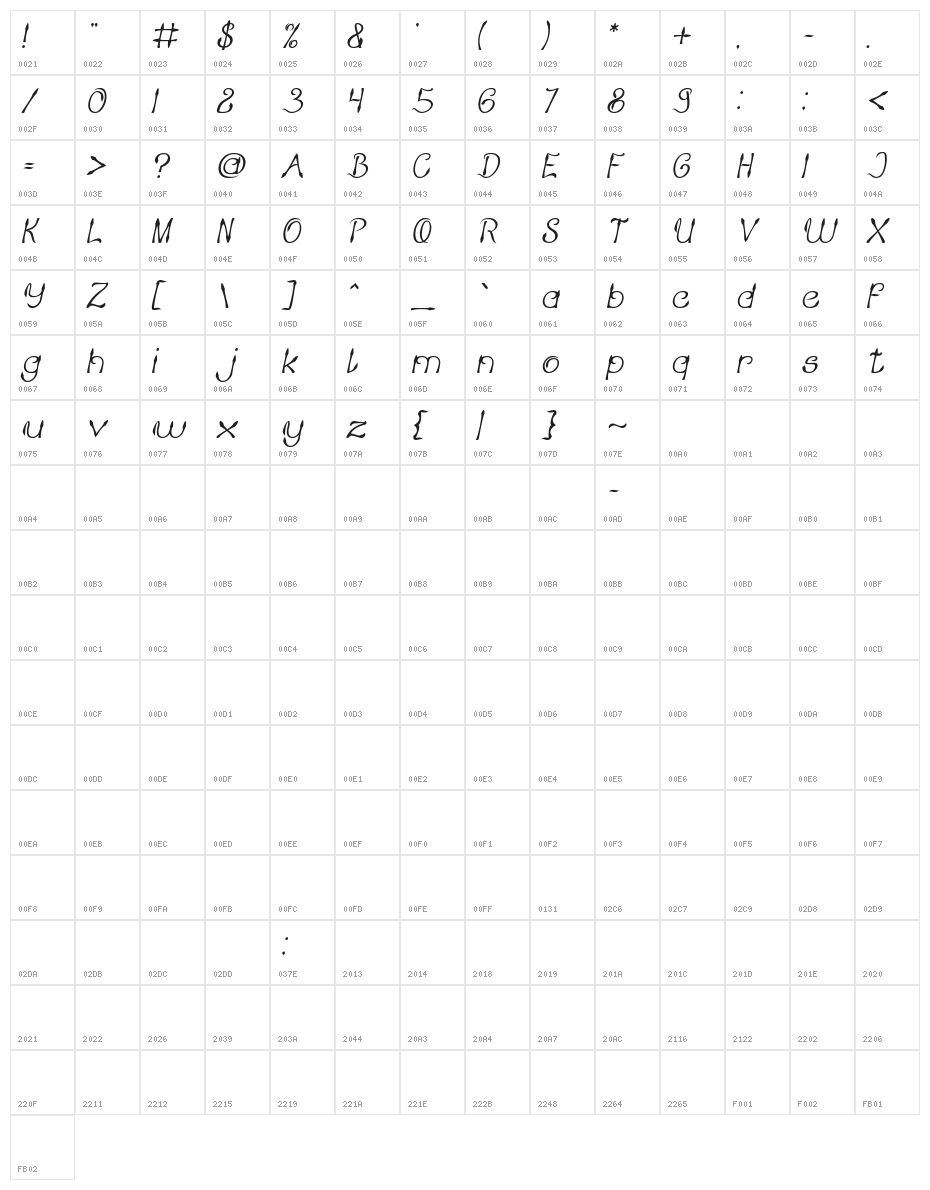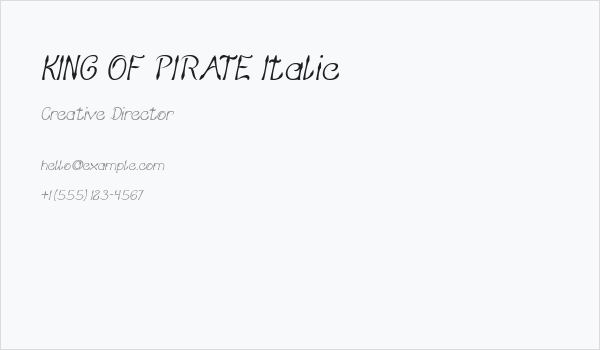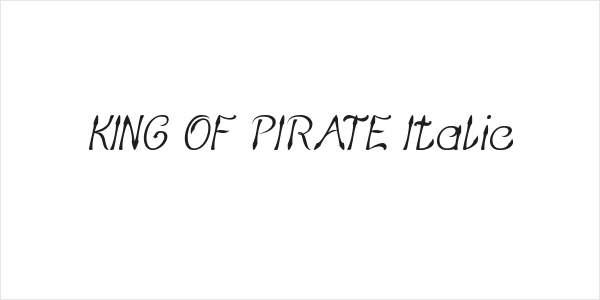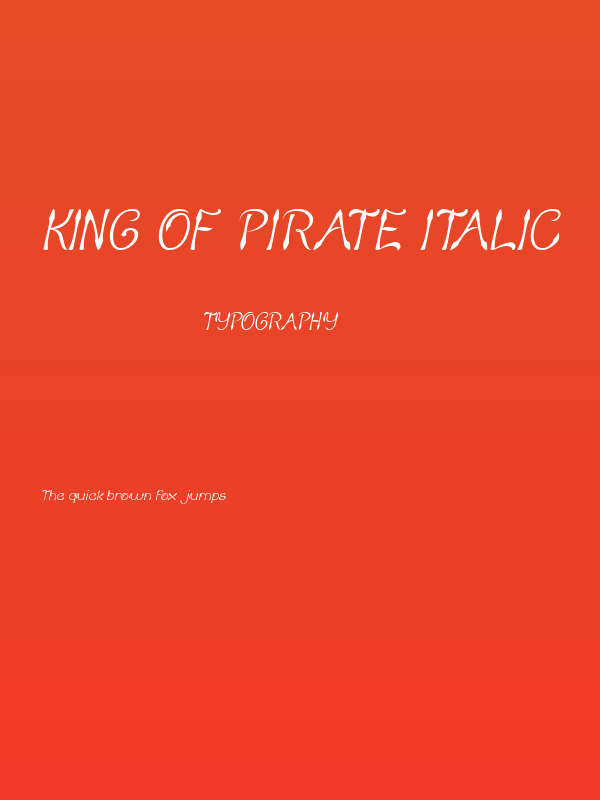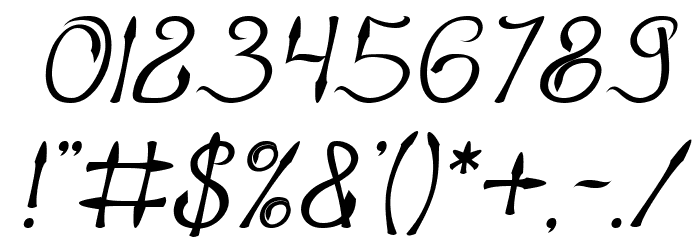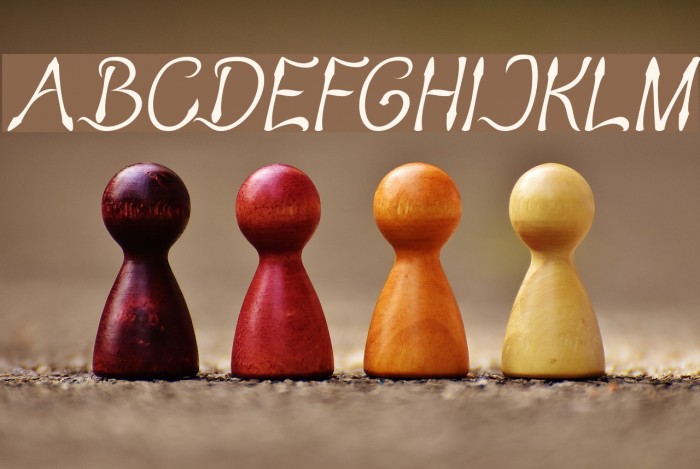
KING OF PIRATE Italic Font
This font features a dynamic and flowing script style, characterized by its italicized and slightly slanted letterforms. The strokes are smooth and continuous, giving it a handwritten appearance. The uppercase letters are bold and prominent, while the lowercase letters maintain a consistent flow, enhancing readability. The numerals are distinct and well-proportioned, complementing the overall aesthetic. Special characters are creatively designed, adding to the font's versatility. This font's unique style makes it suitable for projects that require a personal touch or an artistic flair.
| Proposed Projects | Ideal for invitations, greeting cards, branding, and artistic projects. |